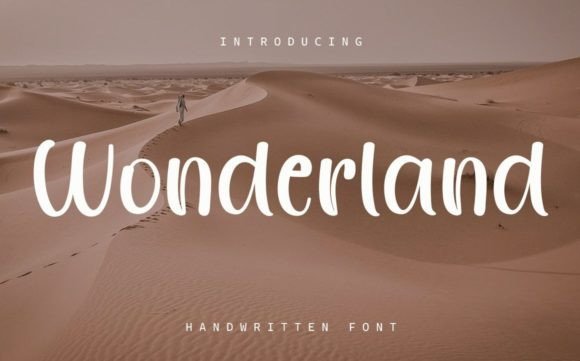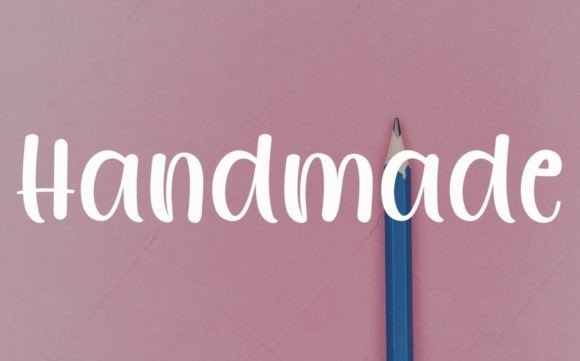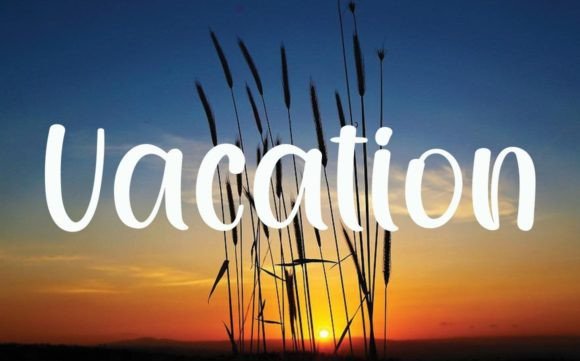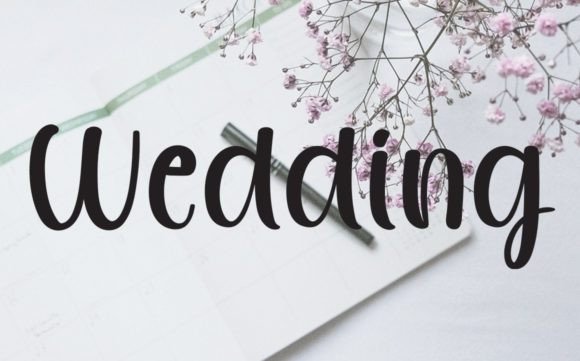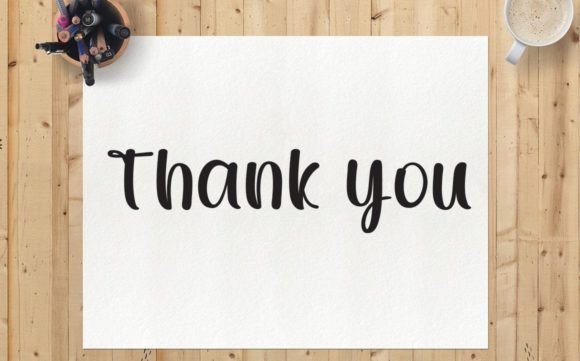
Wonderland Font
About Wonderland Font
“Wonderland: Cool, Simple, and Playful Display Font for Creative Designs
Introducing ‘Wonderland,’ a cool, simple, and playful display font that brings a sense of wonder to your creative projects. This versatile font fits a wide range of designs, elevating them to the highest levels. Whether you’re working on logos, branding, posters, social media graphics, or any other creative endeavor, ‘Wonderland’ is the perfect choice. It’s not just a typeface; it’s a design asset that breathes life into your favorite ideas.
The cool, simple, and playful design of ‘Wonderland’ makes it an incredibly versatile choice for various creative applications. The font’s display style adds a touch of playfulness, enhancing the overall aesthetics and creating a visually pleasing and memorable experience.
For logos, branding, posters, and social media graphics, ‘Wonderland’ becomes a standout choice, infusing a sense of cool simplicity and playfulness into your text. The font’s design contributes to a visually appealing and memorable look.
In various creative projects, ‘Wonderland’ serves as a delightful element, creating a visual impact with its cool and playful display style. Its versatility adds a touch of wonder to your endeavors, making it suitable for a wide range of contexts.
‘Wonderland’s’ ability to breathe life into creative ideas makes it a valuable addition to your font library. Whether you’re working on logos or social media graphics, this font brings a unique and playful character to your designs.
In conclusion, ‘Wonderland’ is more than just a typeface; it’s a design companion that adds a touch of wonder to your creative toolkit. Let ‘Wonderland’ be the artistic element that makes your favorite ideas come alive. Embrace the cool, simple, and playful charm of ‘Wonderland,’ and watch as it transforms your designs into visually enchanting and memorable experiences.”